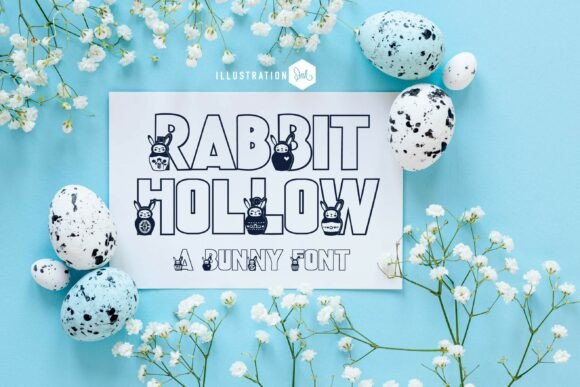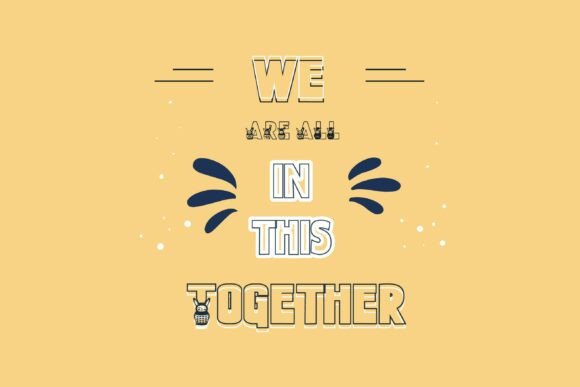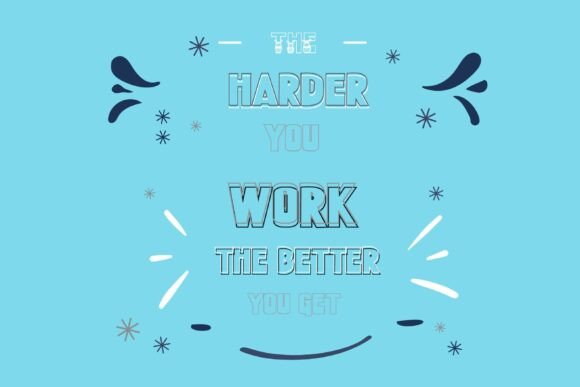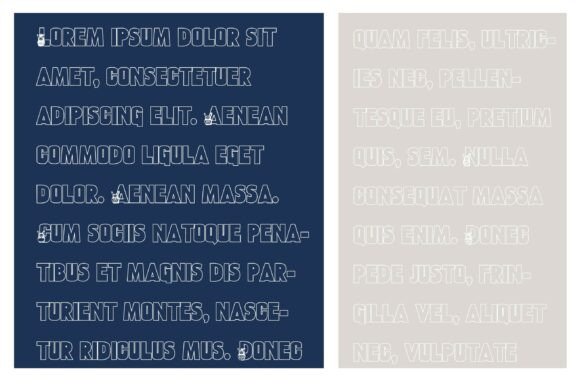
Rabbit Hollow Font
About the Rabbit Hollow Font
Discover the charm of Rabbit Hollow Font. This font is a perfect blend of modern aesthetics and classic appeal. This hand-crafted font is a sans serif with rabbits on the uppercase.
Rabbit Hollow is ideally suited for headlines, short-form text in branding materials, and playful packaging designs. Its handcrafted nature lends itself well to projects requiring a touch of whimsy and approachability. Avoid using it for body copy or long paragraphs; its unique character may become overwhelming and detract from readability.
The font’s personality is undeniably friendly and approachable, with a touch of rustic charm. It projects a feeling of handcrafted quality and warmth.
Pairing Rabbit Hollow with a clean sans-serif like Open Sans for body text provides a strong contrast and improved readability. Alternatively, a classic serif such as Garamond can add a touch of sophistication and balance the font’s playful energy.
Rabbit Hollow Font Usage Examples
Rabbit Hollow Font Example